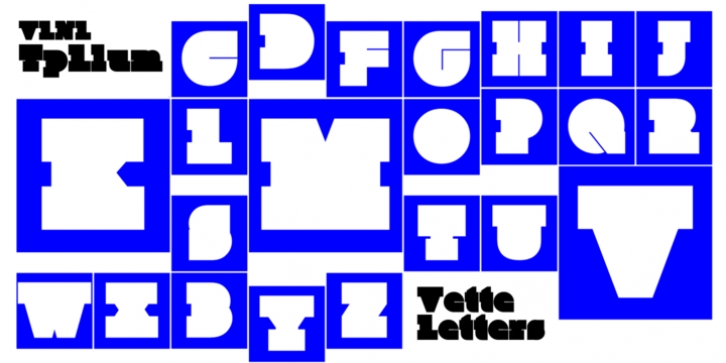
TpLlum is a typeface designed by TwoPoints for a festival in Barcelona called ‘Montjuïc de Nit’. Llum means light in Catalan. In the Montjuïc de Nit project the font was used in white over a dark grey background, letting the light of a backlit poster shine through. For this purpose the typeface had to be very bright, which was made possible by its heavy cut.